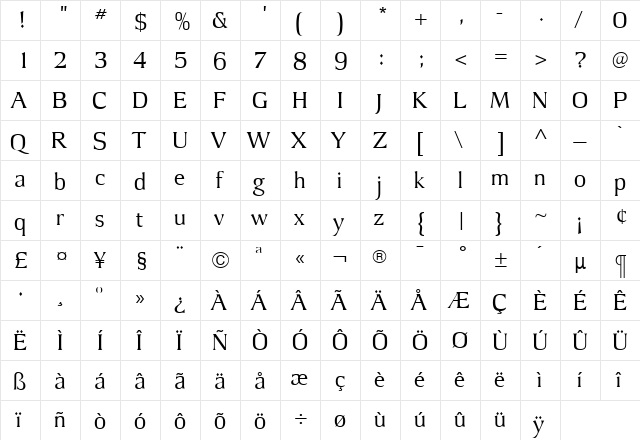
ArgusLight Regular
| Foundry | Copr. Red Rooster Typefounders |
Design Context for ArgusLight Typeface
ArgusLight offers clean, dependable letterforms without strong stylistic allegiance, making it a practical choice for designers who need flexibility. Its slender proportions lend an understated elegance to any composition.
Pro Tip: Use ArgusLight in both headline and body roles to test its range before committing to a single application.